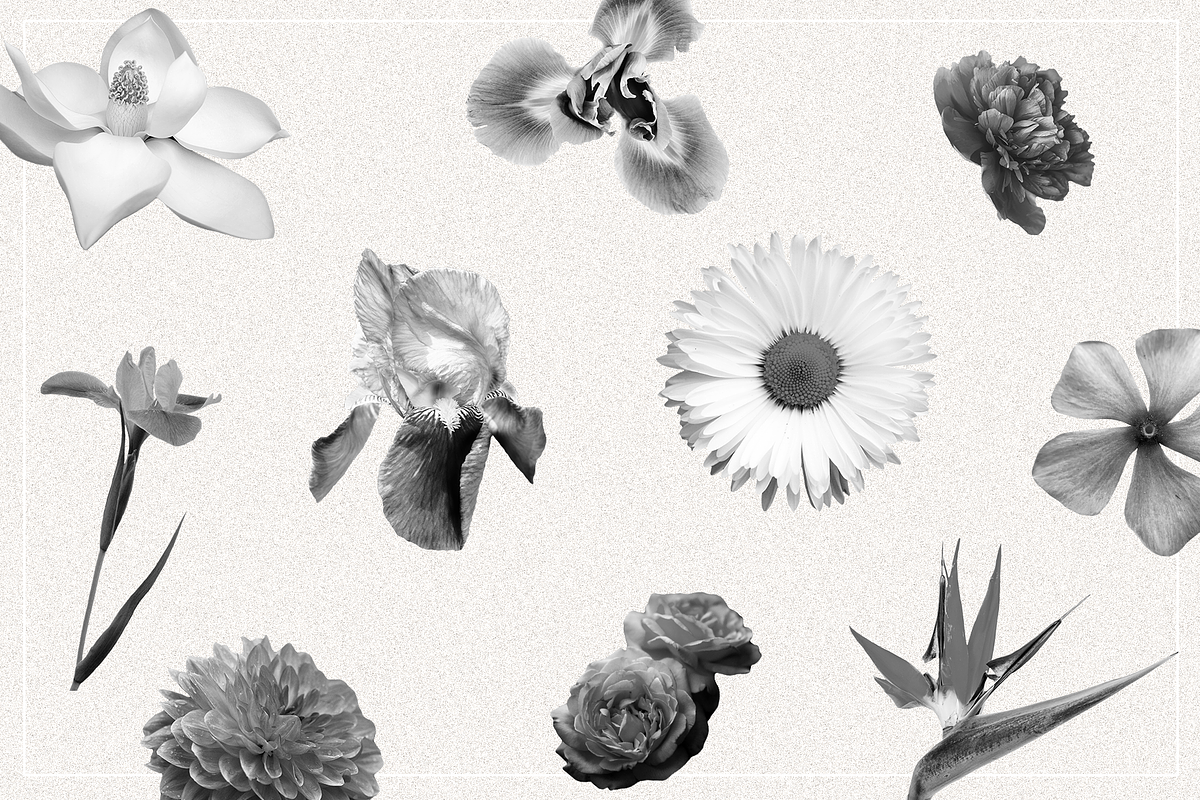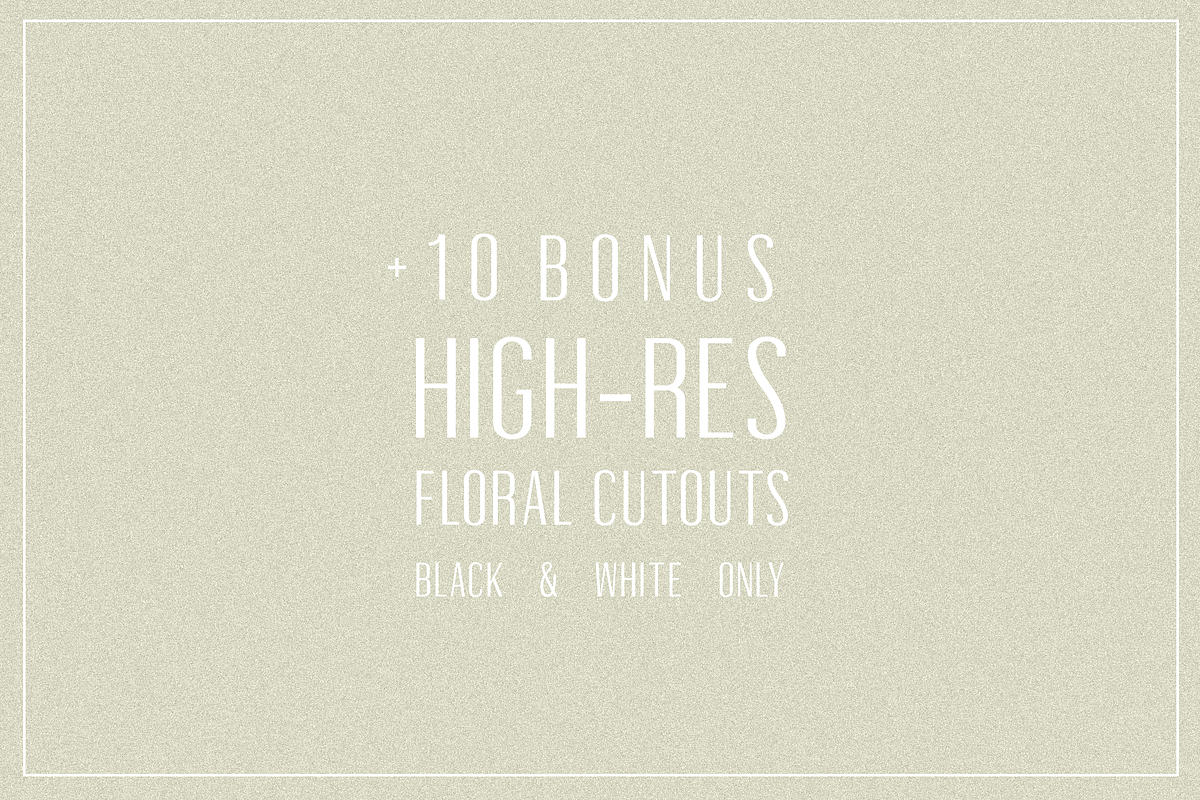
Oleander | Sans-Serif + 10 Cutouts
Introducing Oleander, a classic, condensed sans-serif font. Perfect for everything from creating bold typographic posters to eye-catching social media content, logos, print projects, and more, it is extremely versatile and will definitely be a great addition to whatever project comes your way. Also included in this product are 10 high resolution floral elements that are great for creating collages, unique compositions, posters, and more!